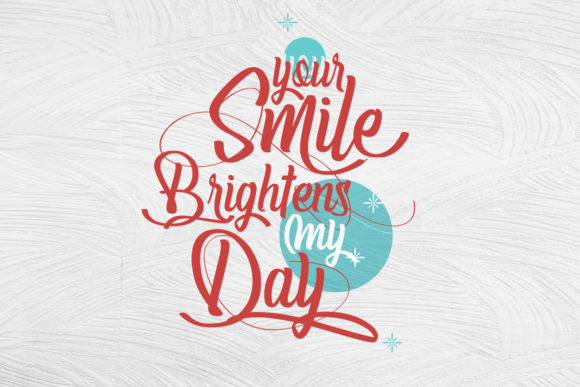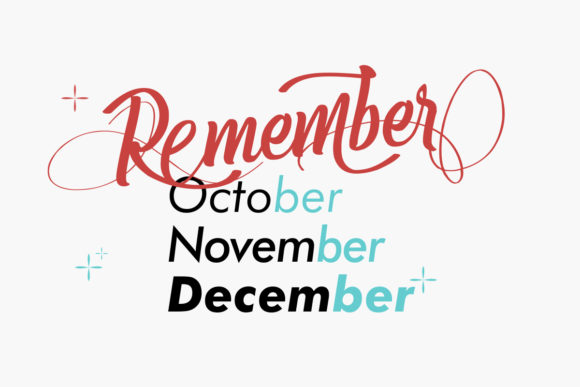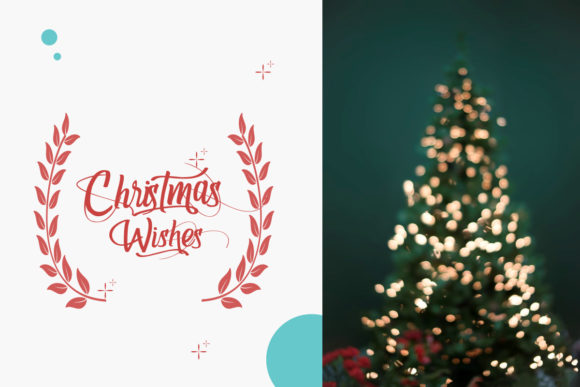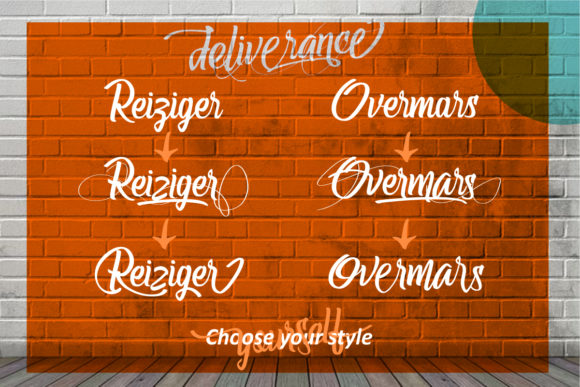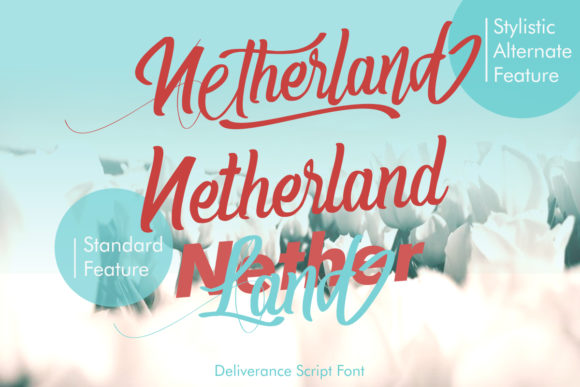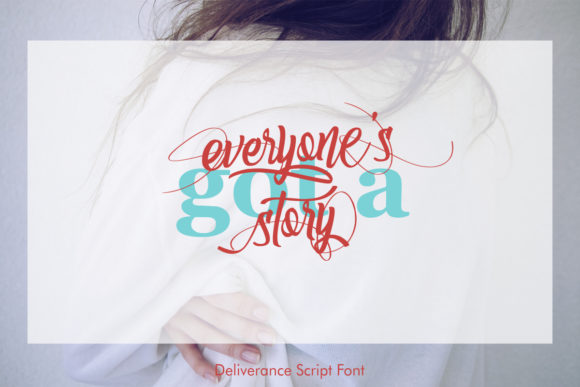
Introducing Deliverance Font: The Sweet and Charming Handwritten Font
Are you looking for a font that can add a bold feel to your design ideas? Look no further than Deliverance Font! This sweet and charming handwritten font is sure to inspire your creativity and take your designs to the next level. In this article, we’ll explore the unique charm of Deliverance Font and how it can be used to create stunning designs.
The Unique Charm of Deliverance Font
Deliverance Font is a beautifully crafted handwritten font that exudes a sense of elegance and sophistication. Its unique charm lies in its bold and confident strokes, which give it a distinctive look that’s hard to find in other fonts. The font’s handwritten style makes it perfect for designs that require a personal touch, such as invitations, greeting cards, and branding materials.
Key Features of Deliverance Font
- Handwritten style: Deliverance Font has a beautiful handwritten style that’s perfect for designs that require a personal touch.
- Bold and confident strokes: The font’s bold and confident strokes give it a distinctive look that’s sure to grab attention.
- Elegant and sophisticated: Deliverance Font exudes a sense of elegance and sophistication, making it perfect for high-end designs.
- Easy to read: Despite its bold style, Deliverance Font is easy to read, making it perfect for designs that require a clear and concise message.
Uses of Deliverance Font
Deliverance Font is a versatile font that can be used in a variety of design projects. Here are some ideas to get you started:
- Invitations: Use Deliverance Font to create beautiful and elegant invitations for weddings, parties, and other special events.
- Greeting cards: Add a personal touch to your greeting cards with Deliverance Font’s handwritten style.
- Branding materials: Use Deliverance Font to create a unique and memorable brand identity for your business.
- Signage: Deliverance Font is perfect for signage projects, such as store signs, billboards, and banners.
Tips for Using Deliverance Font
Here are some tips to help you get the most out of Deliverance Font:
- Use it sparingly: Deliverance Font is a bold font, so use it sparingly to avoid overwhelming your design.
- Pair it with other fonts: Pair Deliverance Font with other fonts to create a unique and interesting contrast.
- Experiment with colors: Deliverance Font looks great in a variety of colors, so experiment with different colors to find the one that works best for your design.
In conclusion, Deliverance Font is a sweet and charming handwritten font that’s perfect for designers and crafters looking to add a bold feel to their design ideas. Its unique charm, elegant style, and versatility make it a great addition to any design project. Whether you’re creating invitations, greeting cards, or branding materials, Deliverance Font is sure to inspire your creativity and take your designs to the next level.
Get Inspired by Deliverance Font
So, what are you waiting for? Get inspired by Deliverance Font and take your designs to new heights! With its bold and confident strokes, elegant style, and versatility, Deliverance Font is the perfect font for designers and crafters who want to create stunning designs that grab attention.